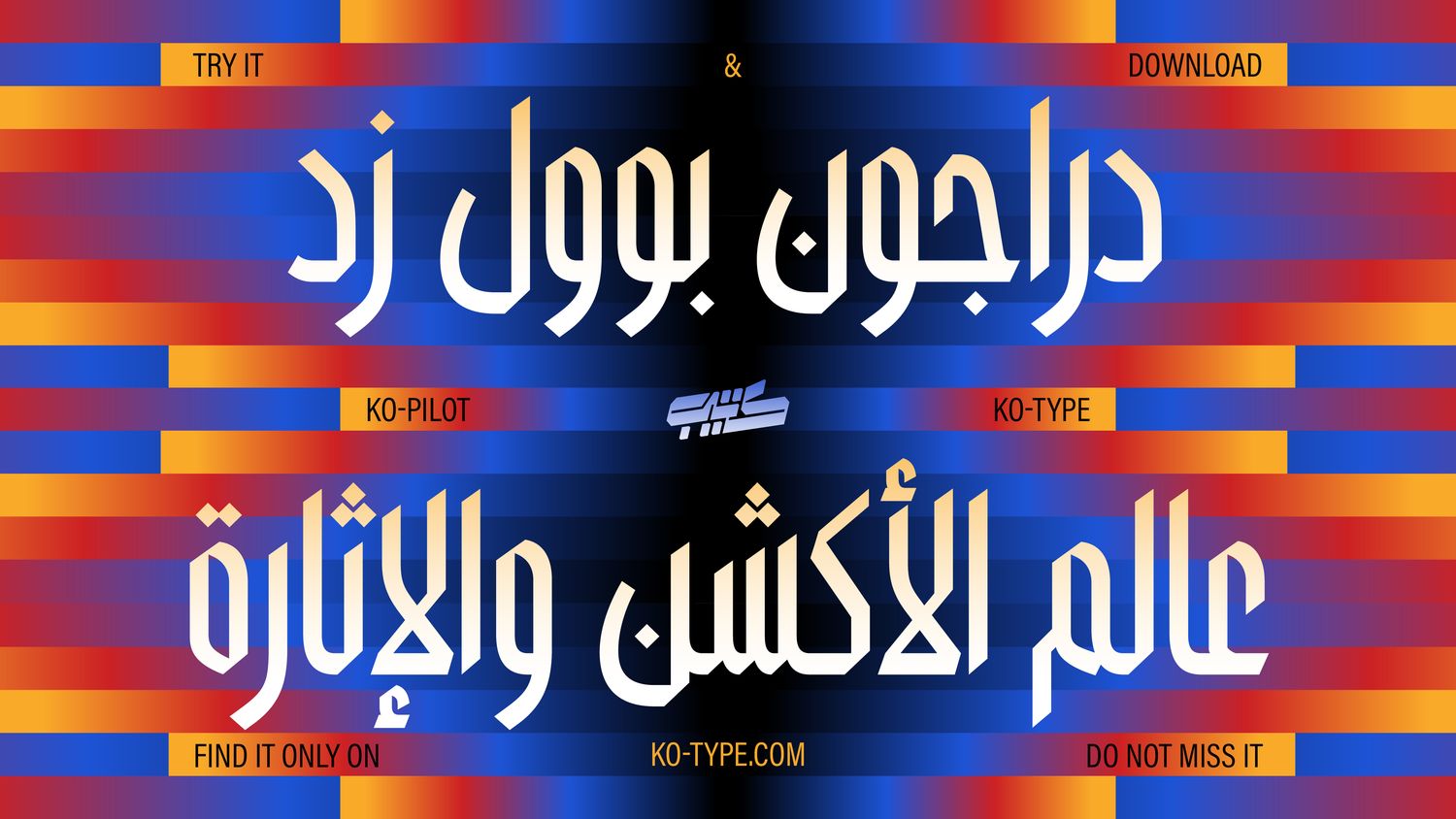
KO Pilot is a modern Arabic display typeface inspired by the lettering of Wael Morcos, which itself draws influence from the Optimum Compress typeface—a contemporary interpretation of the Textura Blackletter style. Ko Pilot builds on these foundations by incorporating the elegant structure of Arabic calligraphy, reimagined through a condensed, blackletter-inspired lens. The name “Ko Pilot” references the Pilot pen, whose distinctive nib shape helped define the strokes and overall texture of the typeface. The result is a bold and expressive design that fuses traditional Arabic calligraphic aesthetics with the sharp, compressed forms of modern blackletter.